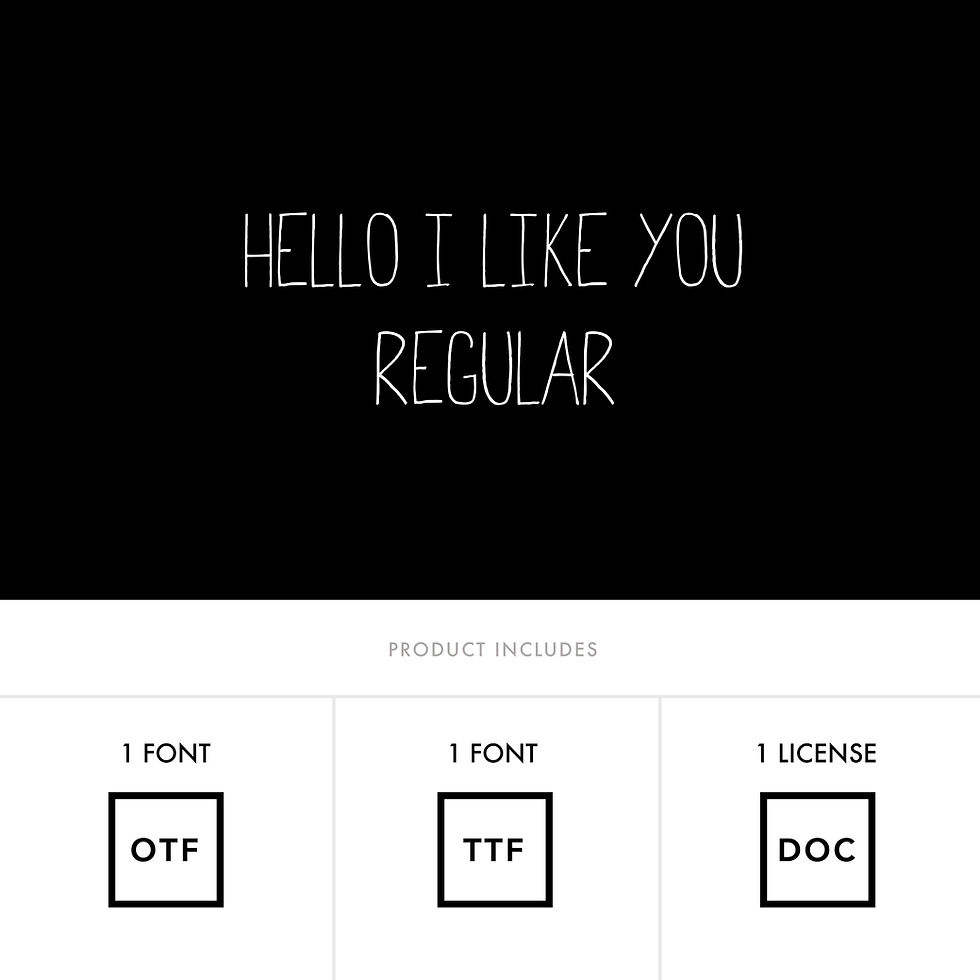
HELLO I LIKE YOU REGULAR FONT is a quirky, fun, hand-drawn font with Latin Pro Characters.
Use Hello I Like You font for packaging, magazines, layouts, web design, corporate identity and marketing.
Hello I Like You Regular Font